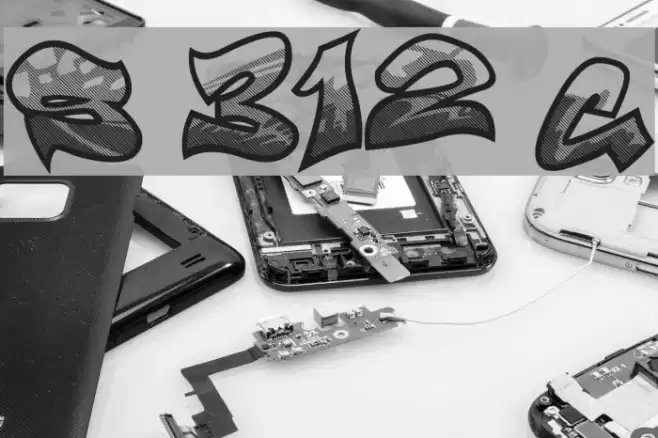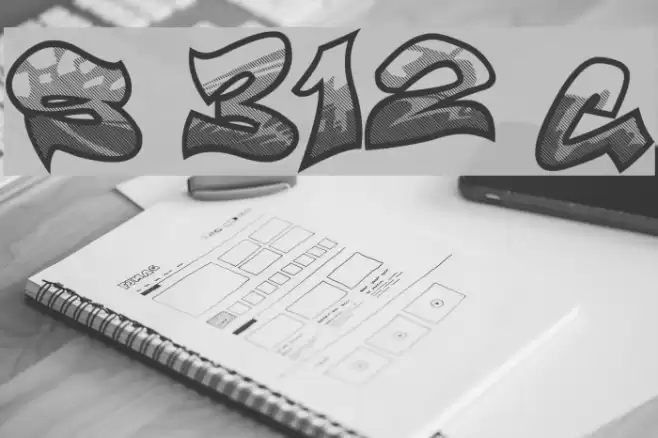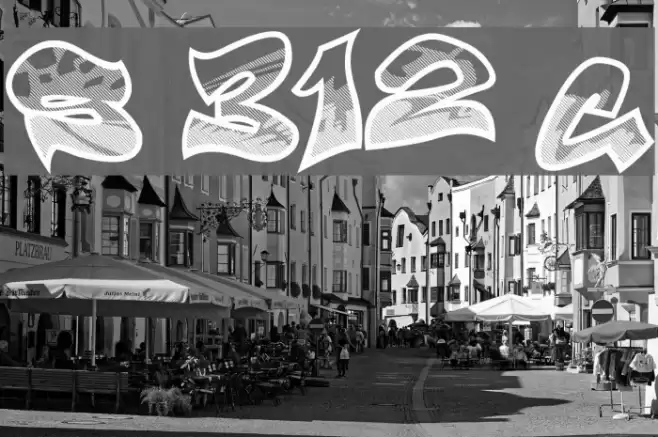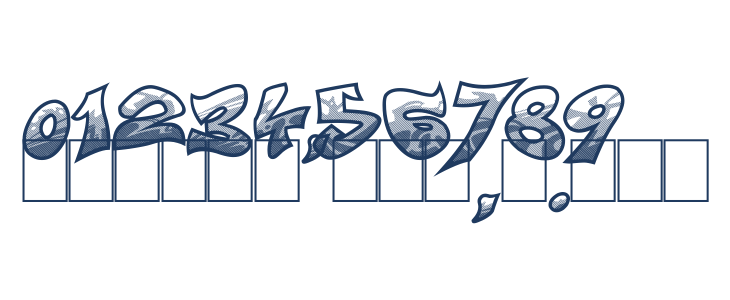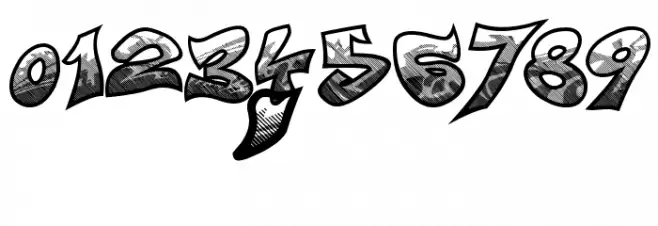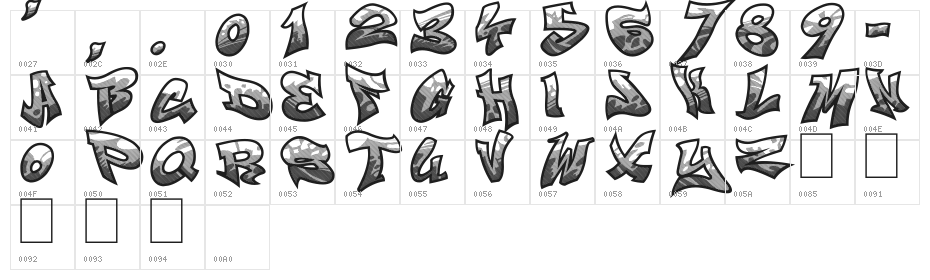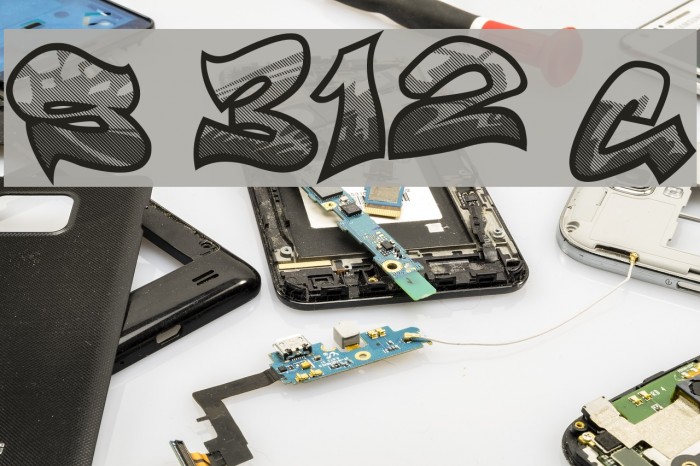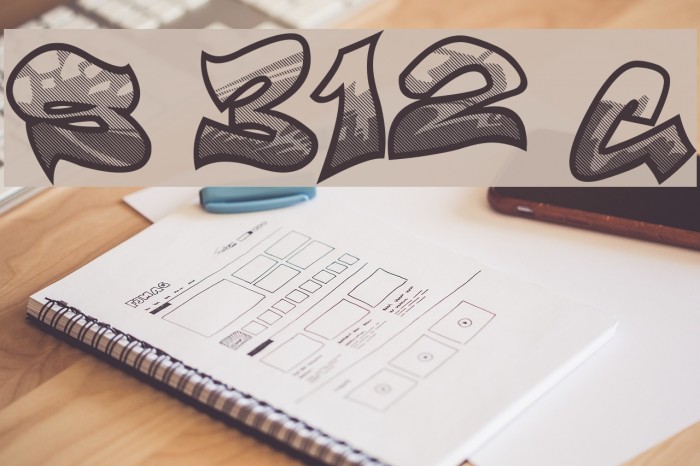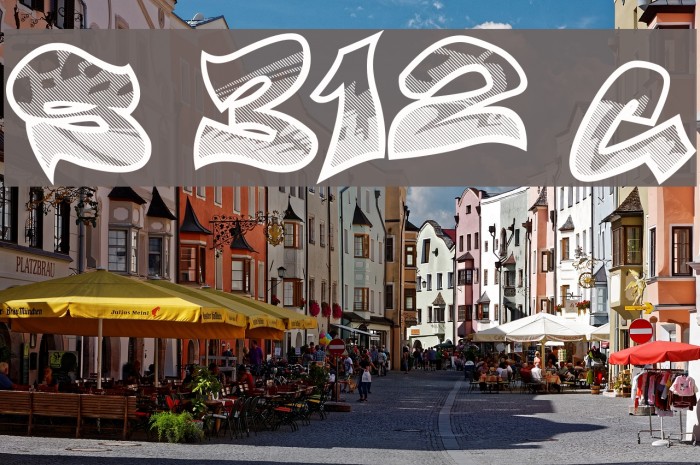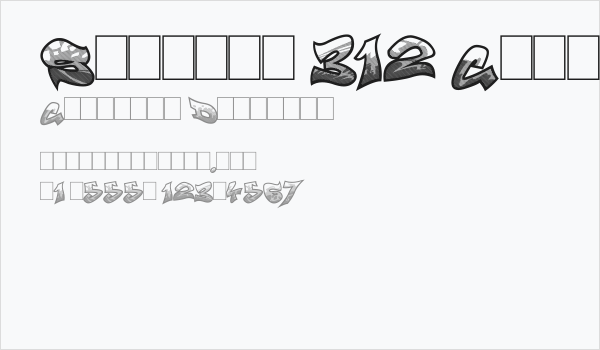
Smasher 312 Custom Font
Smasher 312 Custom Description
This font features a bold, graffiti-inspired style with dynamic, angular shapes and a textured, shaded appearance. Each character is uniquely designed with a sense of movement and energy, making it stand out with its artistic flair. The uppercase and lowercase letters share a consistent style, while the numbers and special characters maintain the same bold and expressive design. The font's textured look adds depth and a sense of three-dimensionality, making it ideal for creative and eye-catching designs.
A bold, graffiti-inspired font with textured, dynamic characters from Uncategorized fonts.
- Proposed Projects: Perfect for street art designs, urban-themed posters, music album covers, and edgy branding projects.